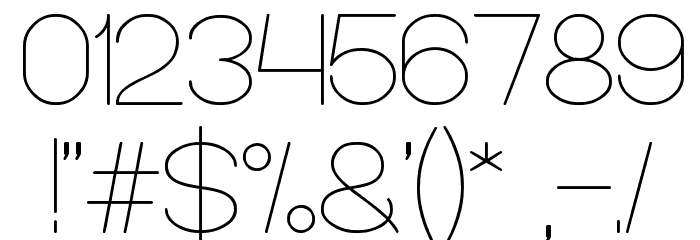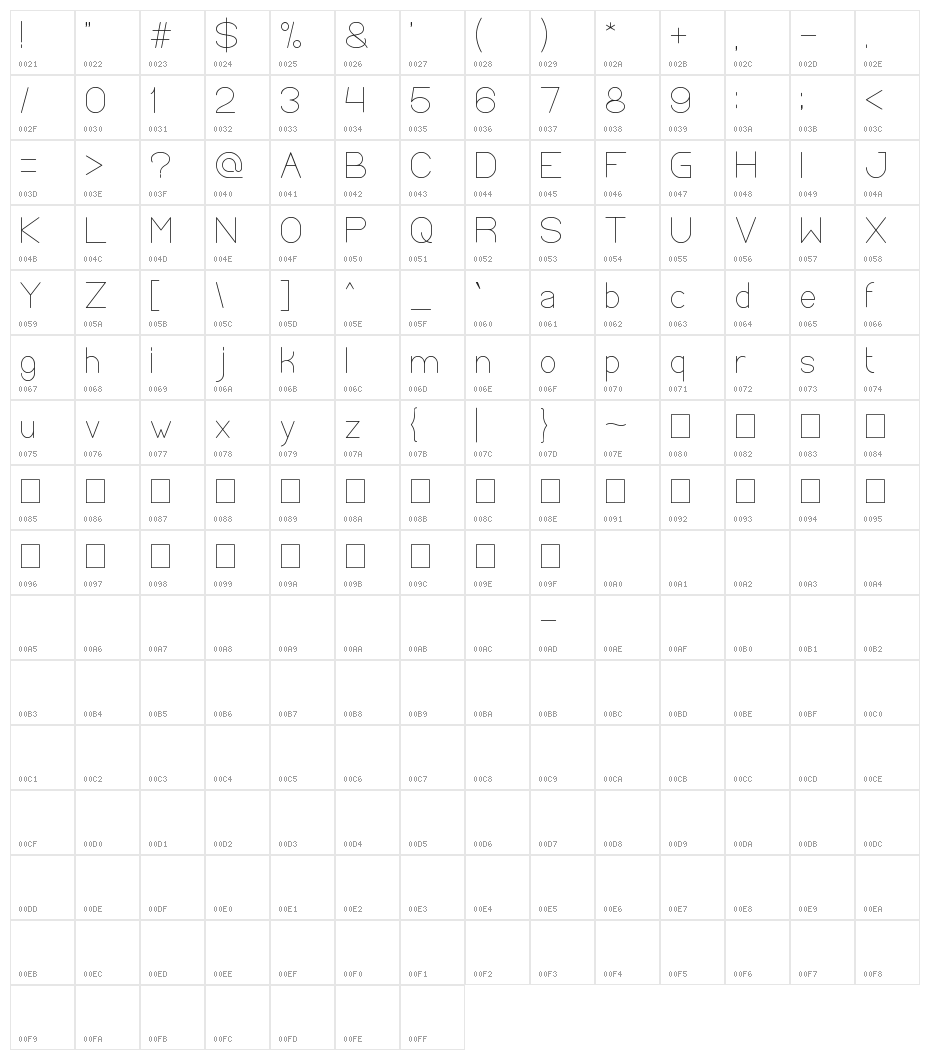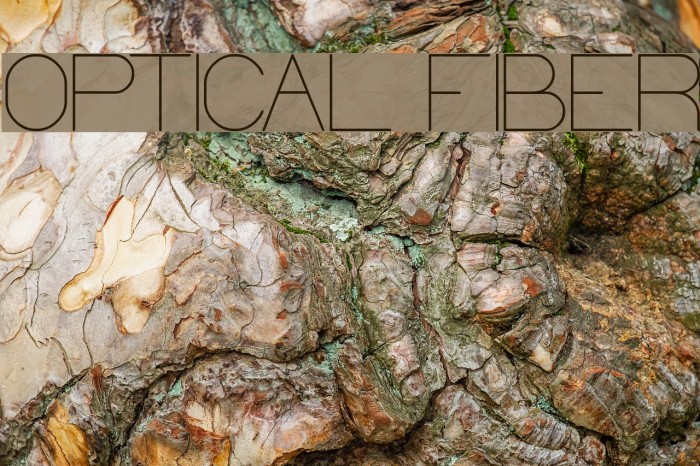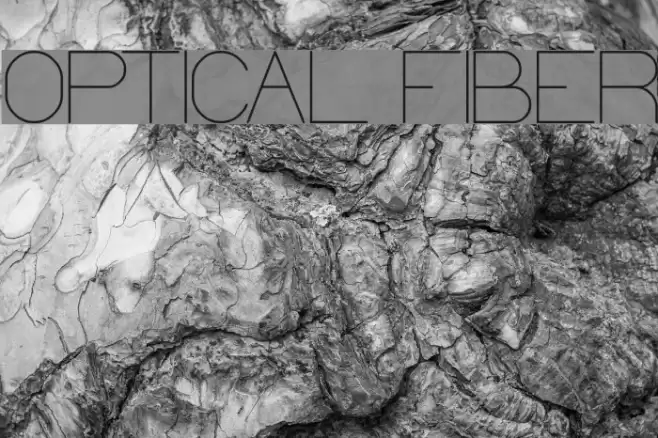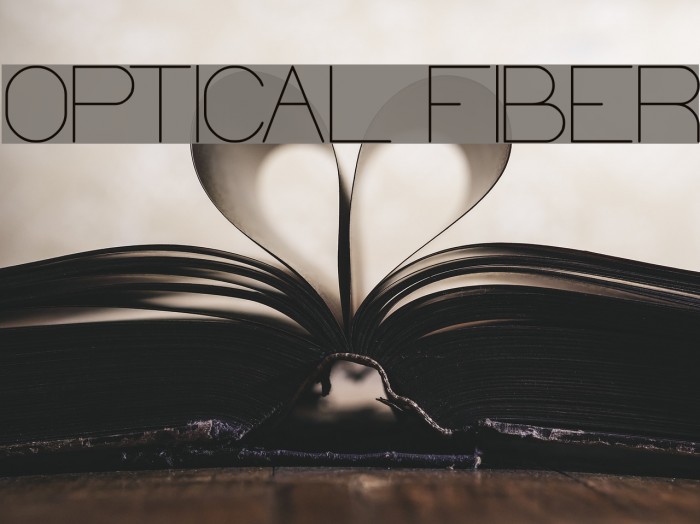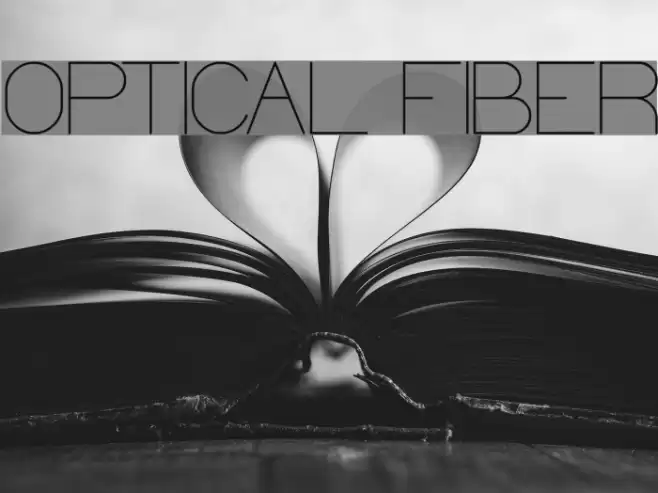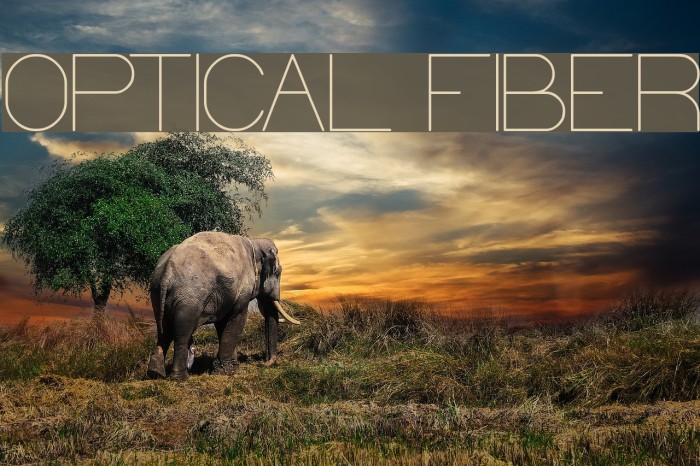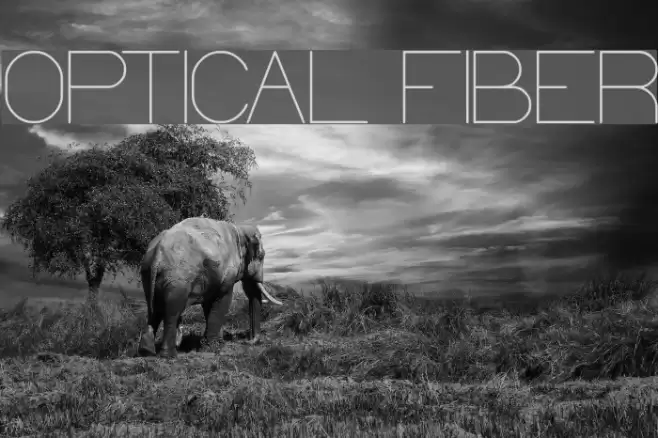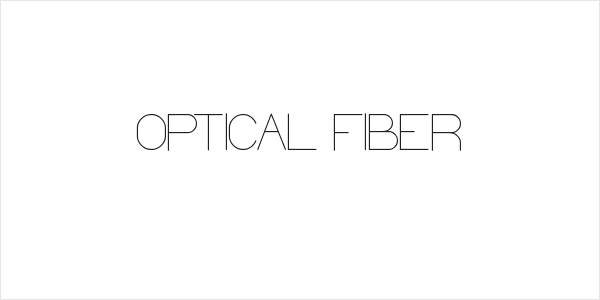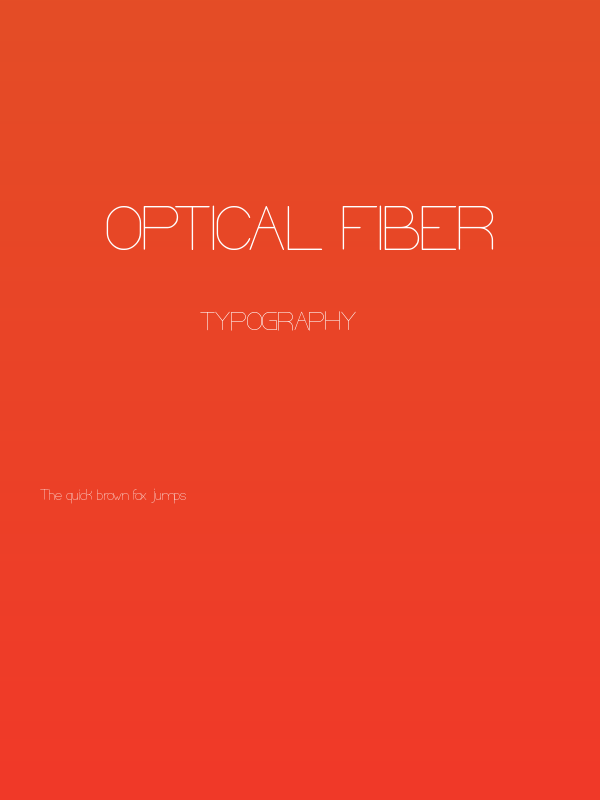
OPTICAL FIBER Font
OPTICAL FIBER Description
This font features a sleek, modern design with clean lines and a geometric structure. The characters are composed of thin strokes, giving it a light and airy appearance. The uppercase letters are uniform in height, while the lowercase letters maintain a consistent baseline with a slight variation in height for a balanced look. The numerals are distinct and easy to read, complementing the overall minimalist style. Special characters are elegantly integrated, maintaining the font's cohesive aesthetic. This typeface is ideal for projects that require a contemporary and sophisticated touch.
| Proposed Projects | Ideal for branding, digital interfaces, modern advertising, and editorial design. |